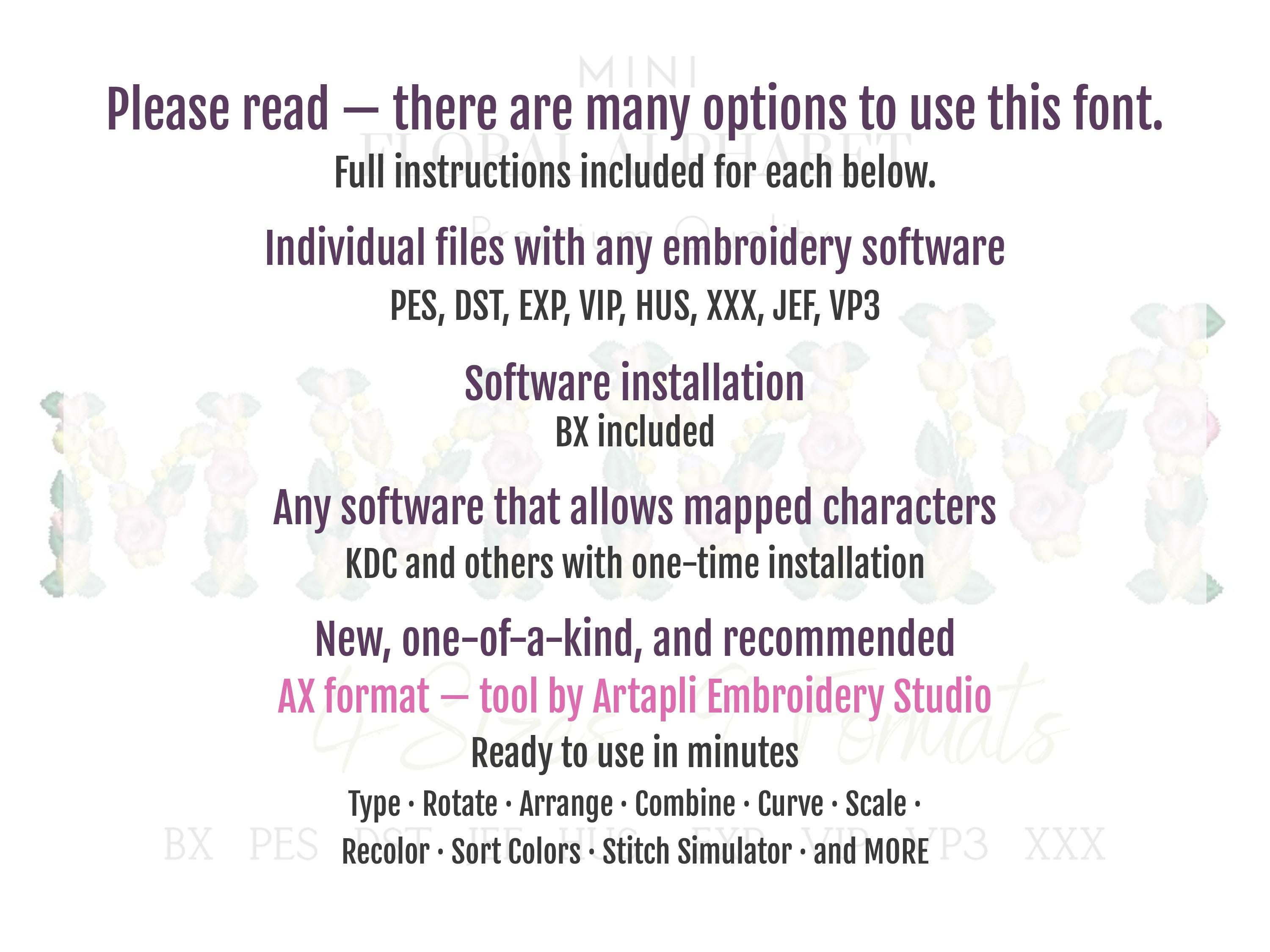
Mini roses floral font alphabet flower monogram liberty fashioned flowers Font machine embroidery designs sizes 1.4, 1.6, 1.8, 2 in BX inc
Letters A-Z